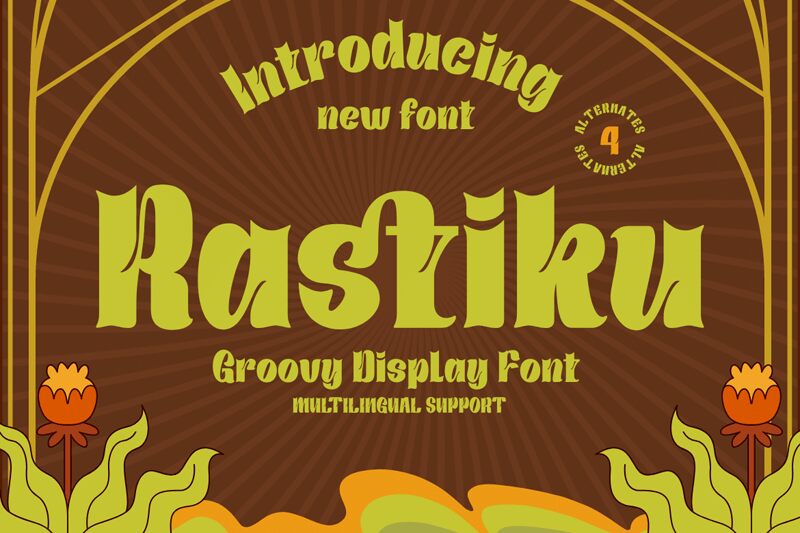
Dive into the playful vibes of the '70s with Rastiku, a display font that turns heads with its groovy essence and extra-bold charisma. Designed by twinletter, Rastiku embodies a semi-condensed structure that delivers a striking impact in any creative context. Its retro flair is perfectly suited for branding endeavors, eye-catching product packaging, or adding a splash of nostalgic panache to editorial pieces.
With an effortless fusion of bold curves and sharp angles, Rastiku ensures legibility while retaining its funky spirit-ideal for designers aiming to make a statement. Whether crafting concert posters or modernizing vintage aesthetics within contemporary designs, Rastiku offers an intriguing blend of past and present. Embrace this unique typeface and watch your projects dance off the page with an unmistakable groove that only Rastiku can provide.